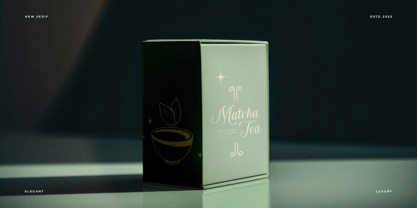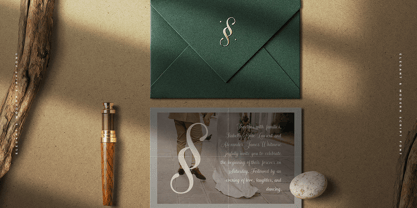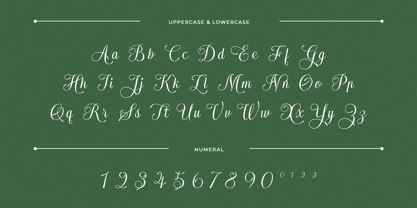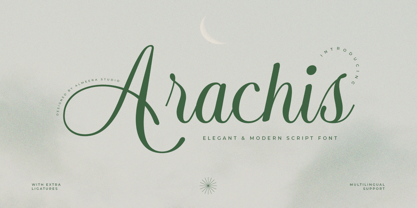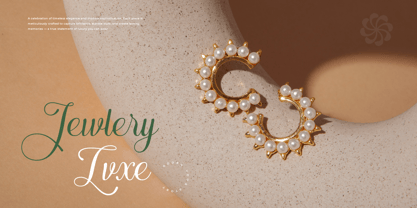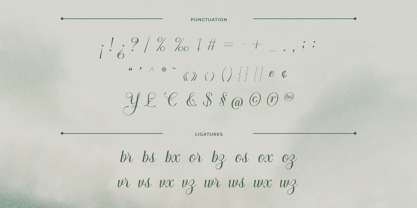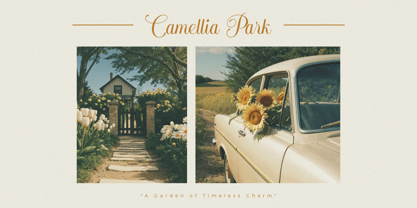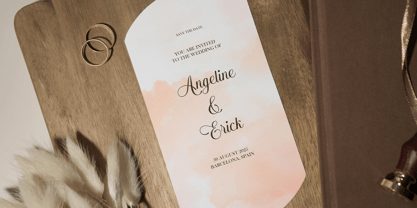
Arachis
by Almeera Studio
The Arachis Font Family was designed by Rinto Dwi Nugroho and published by Almeera Studio. Arachis contains 1 styles. More about this family
Step into sophistication with Arachis, an elegant and modern script font that blends timeless charm with a contemporary twist. Every curve and stroke is designed to exude luxury, making it the perfect choice for high-end branding, wedding invitations, product packaging, and editorial designs.
With its extra ligatures, Arachis offers natural, flowing connections between letters for a refined and custom look. Multilingual support ensures your message speaks beautifully in any language. Whether you’re crafting a boutique logo or a romantic event invitation, Arachis delivers a polished, graceful finish that will captivate your audience.
FEATURES:
- Uppercase
- Lowercase
- Multilingual support
- Ligatures
- Playful alternates and swashy details
- Punctuation
- Numerial